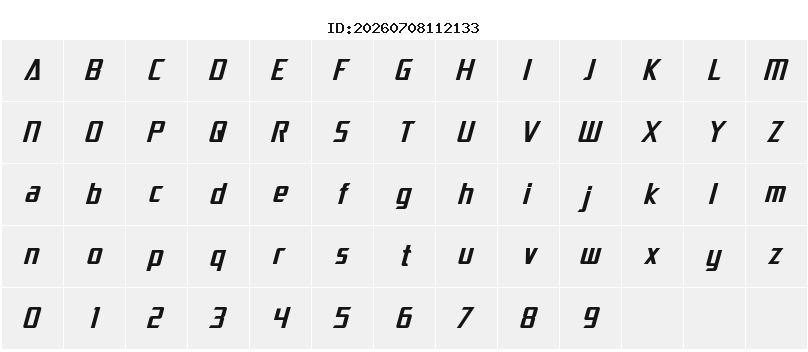
• Font Name: Dai-Atlas
• Font ID: Dai-Atlas Italic:Version 1.00
• Full Font Name: Dai-Atlas Italic
• Version: Version 1.00 November 21, 2013, initial release
• PostScript Name: Dai-Atlas-Italic
• Designer: Neale Davidson
• Manufacturer: Neale Davidson
About Dai-Atlas.otf
Dai-Atlas.otf is a modern, elegant sans-serif font designed for ultimate readability and visual harmony. Perfect for branding, headlines, web design, and print materials.